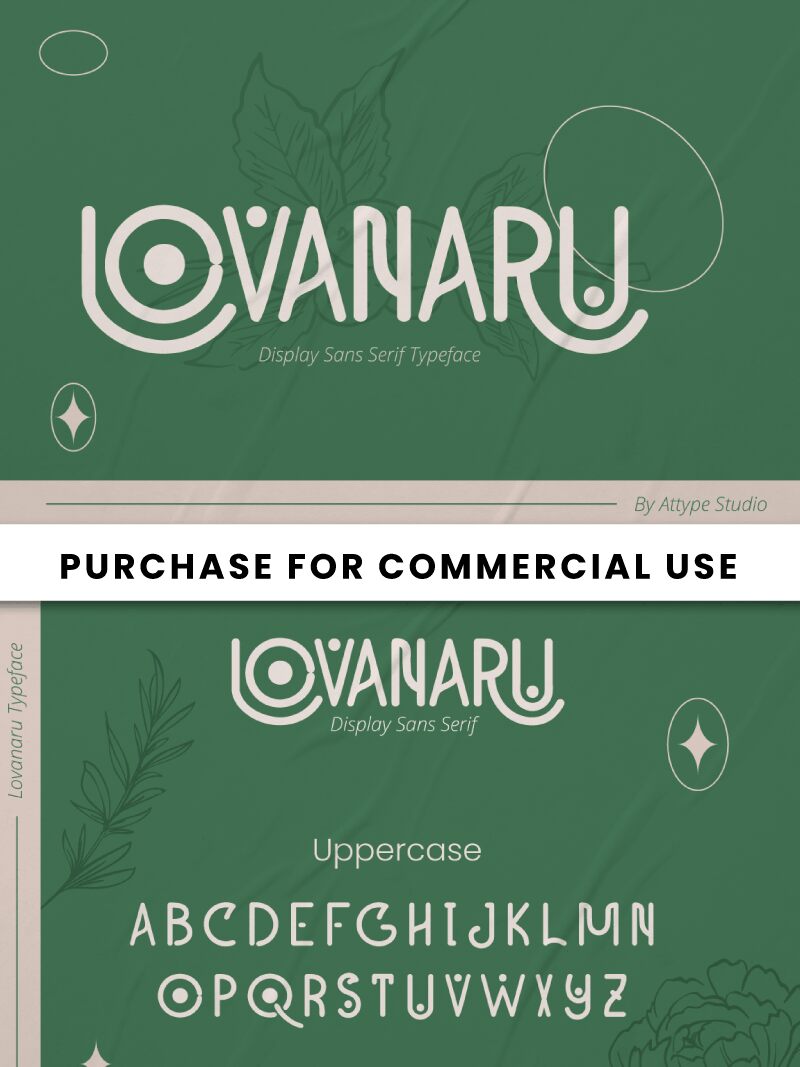
Lovanaru Regular
Lovanaru font by Attype Studio is a free rounded art‑deco display font. Built around smooth, tubular strokes and sculpted terminals, it balances plush curves with crisp angles—the V bites in sharply while the O is deliciously circular. Tall, evenly spaced forms create a confident rhythm, and the quirky, open apexes add a handcrafted sparkle without getting messy.
Using Lovanaru, headlines feel luxe and lively—great for boutique branding, posters, packaging, cafe menus, album covers, and event invitations. This free font shines at larger sizes where its glossy stroke endings and geometric flow can breathe. For copy, pair it with a clean grotesque sans to keep things grounded, and add a touch of extra tracking on longer words to let those rounded shapes glow.